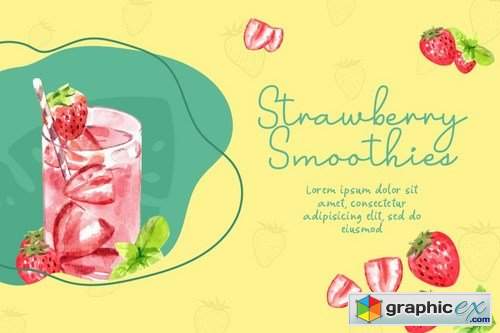
Bernida - Lovely Script
Introducing, Bernida - A cute and lovely script with casual and playful feel. This type of font perfectly made to be applied especially in logo, and the other various formal forms such as invitations, labels, logos, magazines, books, greeting / wedding cards, packaging, fashion, make up, stationery, novels, labels or any type of advertising purpose.